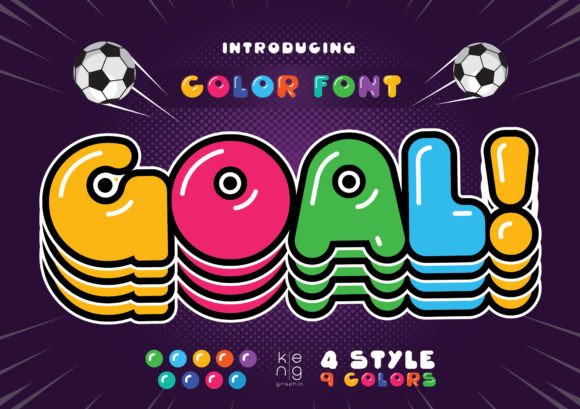
Introducing Goal Font, the ultimate font for movie titles that will take your designs to the next level! Created by keng graphic, this colorful font is packed with personality and will make your text instantly recognizable. Get ready to attract attention and captivate your audience with its vibrant and eye-catching style.
Ideal for a variety of creative projects, Goal Font is perfect for comic book-style designs, online games, love shirts, posters, and even movie titles. With its youthful and courageous vibe, this font adds a touch of excitement and energy to any visual piece.
But that's not all – Goal Font is also a color font (Opentype-SVG) that allows you to unleash your creativity like never before. Compatible with popular design software such as Photoshop, Illustrator, Silhouette, and Inkscape, this font gives you the freedom to experiment and create stunning visuals that truly stand out.
Don't settle for ordinary fonts when you can have Goal Font – the font that adds that extra punch to your designs. Stand out from the crowd, grab attention, and make a lasting impression with this incredible font. Embrace the power of Goal Font and let your creativity soar!